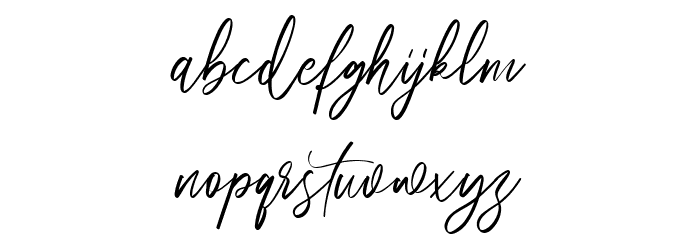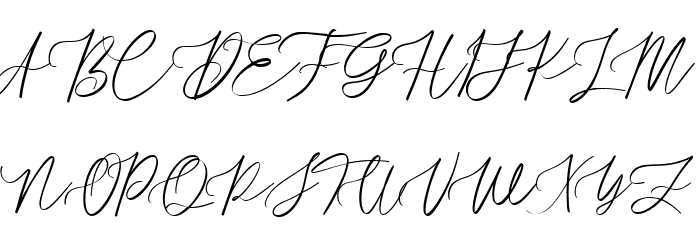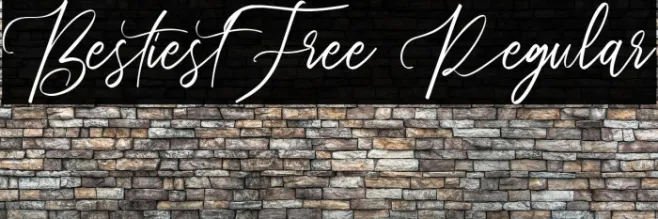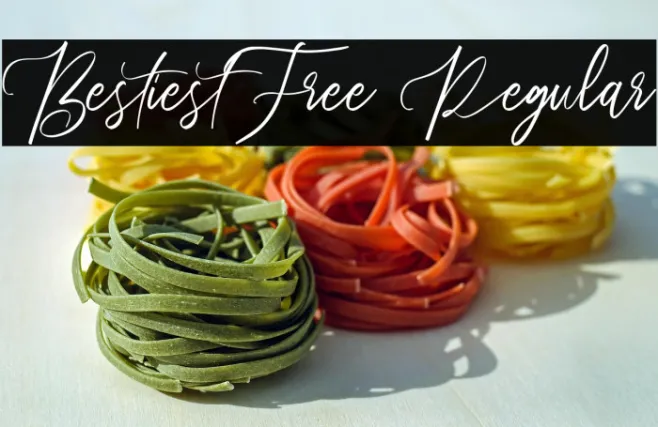
Bestiest Free Regular Font
This font exudes a sense of elegance and fluidity, characterized by its cursive script style. The letters are interconnected with graceful, sweeping strokes that give it a handwritten appearance. The uppercase letters are slightly more elaborate, with decorative loops and flourishes, while the lowercase letters maintain a consistent flow. The overall design is delicate yet expressive, making it suitable for projects that require a personal touch. The font's thin lines and high contrast between thick and thin strokes add to its sophisticated look.
A cursive script font with elegant, flowing strokes and high contrast.
- Proposed Projects: Ideal for wedding invitations, greeting cards, personal branding, and elegant logos.
- Category: Script
- Character Spacing: Tight
- Overall Style: Elegant, Handwritten
- Use Case: Logos, Invitations, Personal Branding